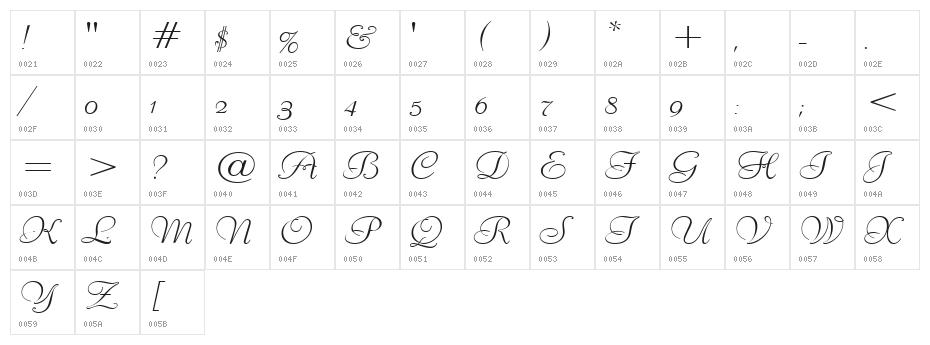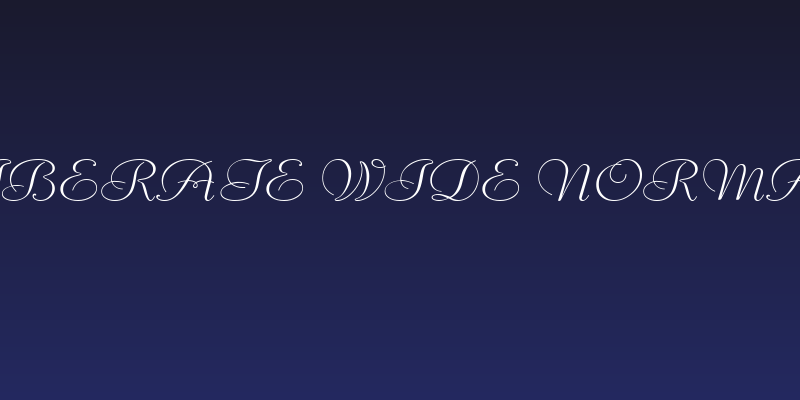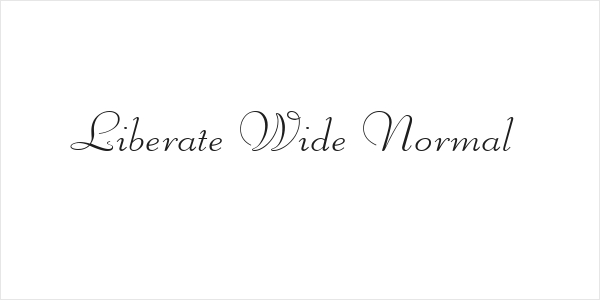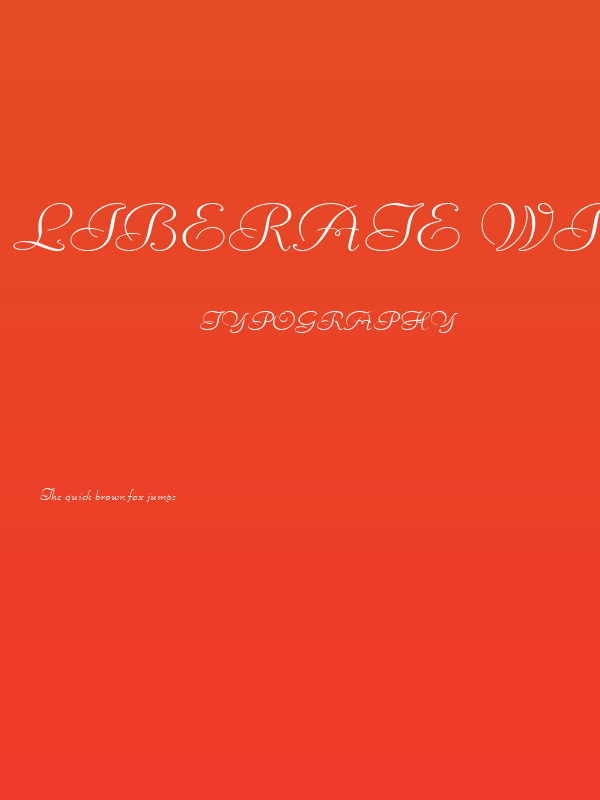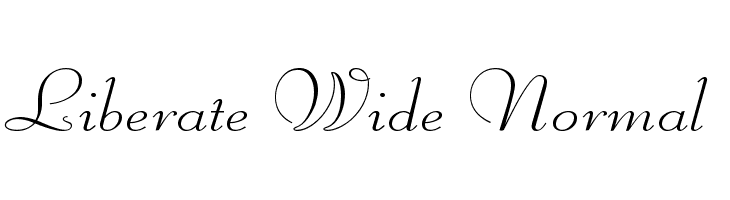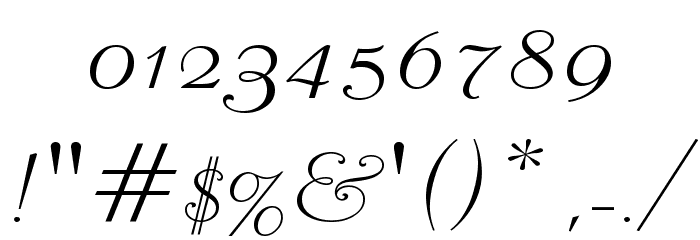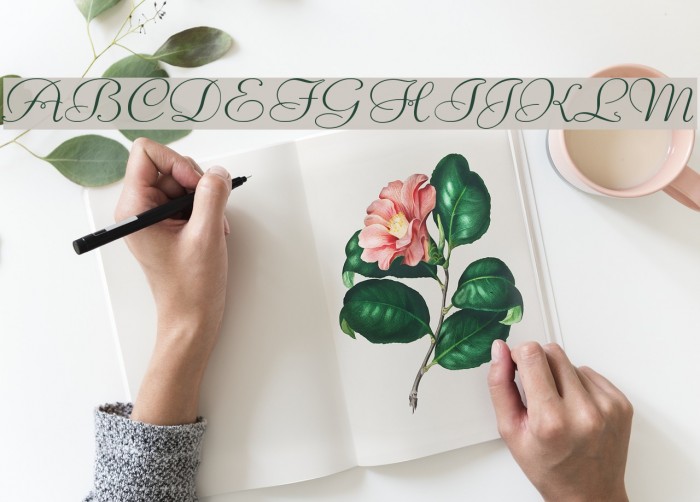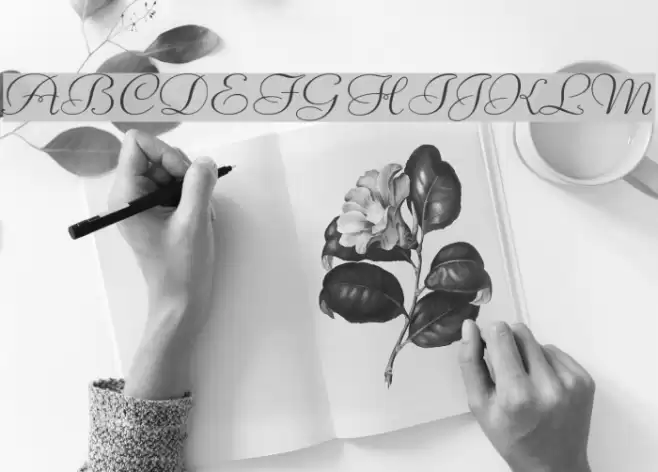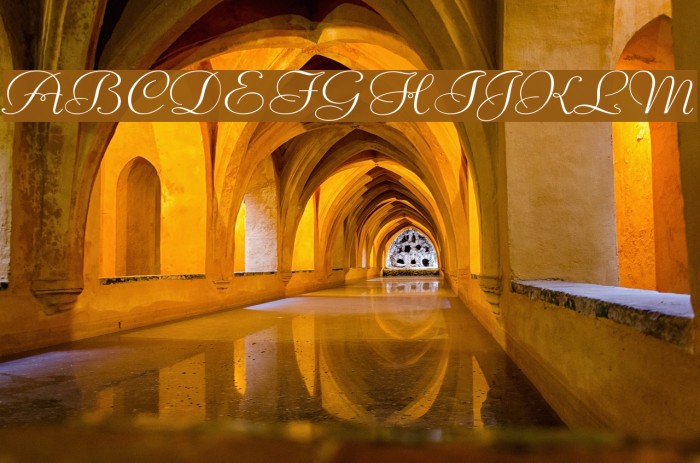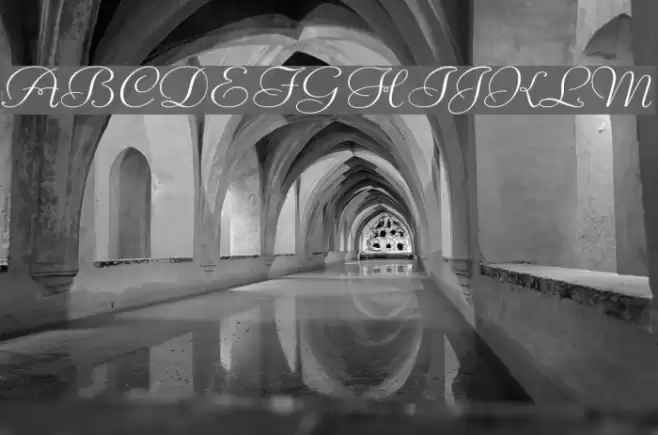
Liberate Wide Normal Font
Liberate Wide Normal Description
This elegant script font features flowing, cursive letters with a refined and sophisticated appearance. The uppercase letters are characterized by their intricate loops and flourishes, while the lowercase letters maintain a smooth and connected style. The numerals are designed with a consistent stroke width, adding to the font's overall harmony. Special characters are crafted with the same attention to detail, ensuring a cohesive look across all glyphs. This font exudes a sense of grace and formality, making it ideal for projects that require a touch of elegance.
| Overall Style | Elegant |
| Use Case | Invitations, Branding, Packaging |
| Proposed Projects | Ideal for wedding invitations, formal event programs, elegant branding, and luxury product packaging. |